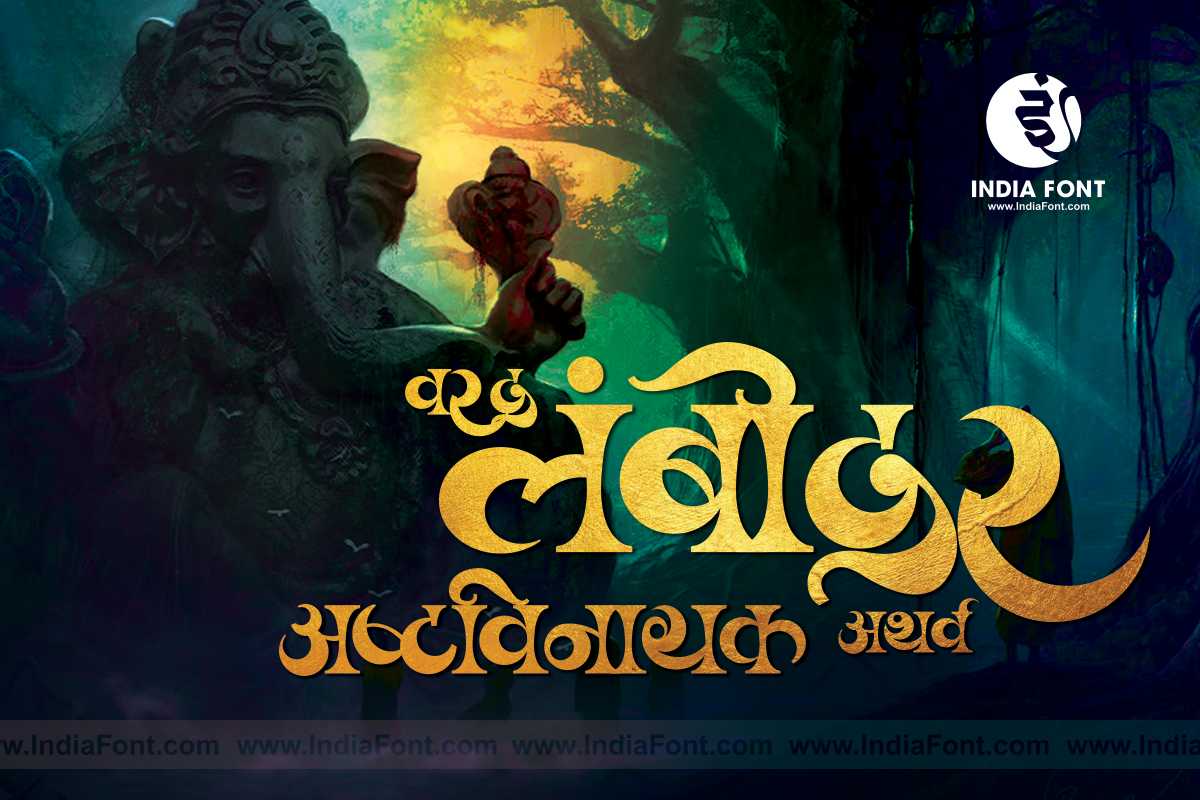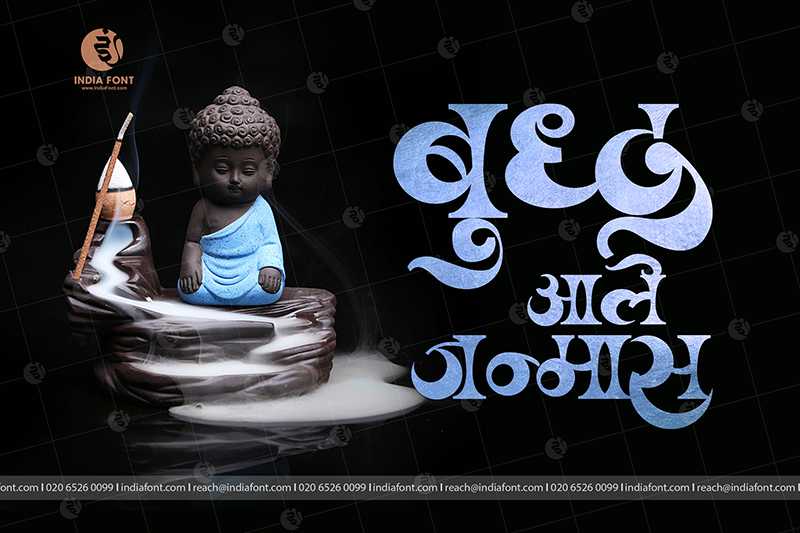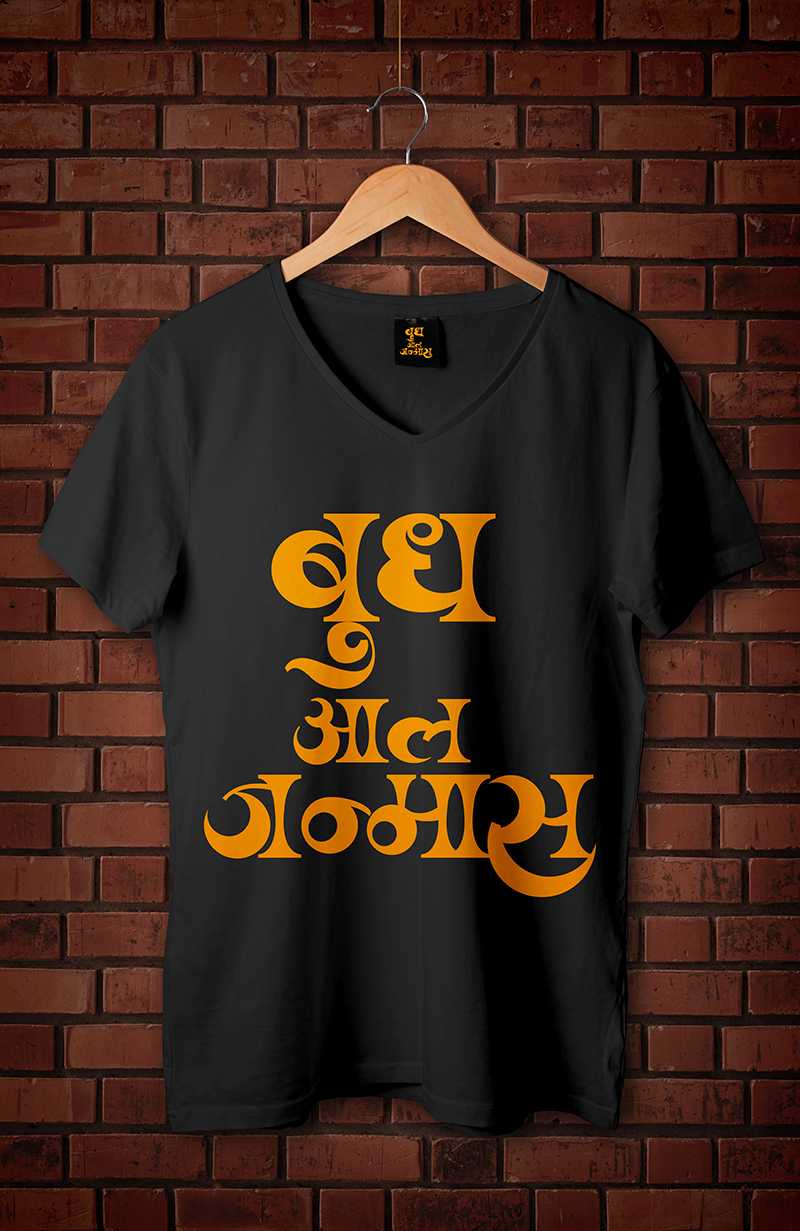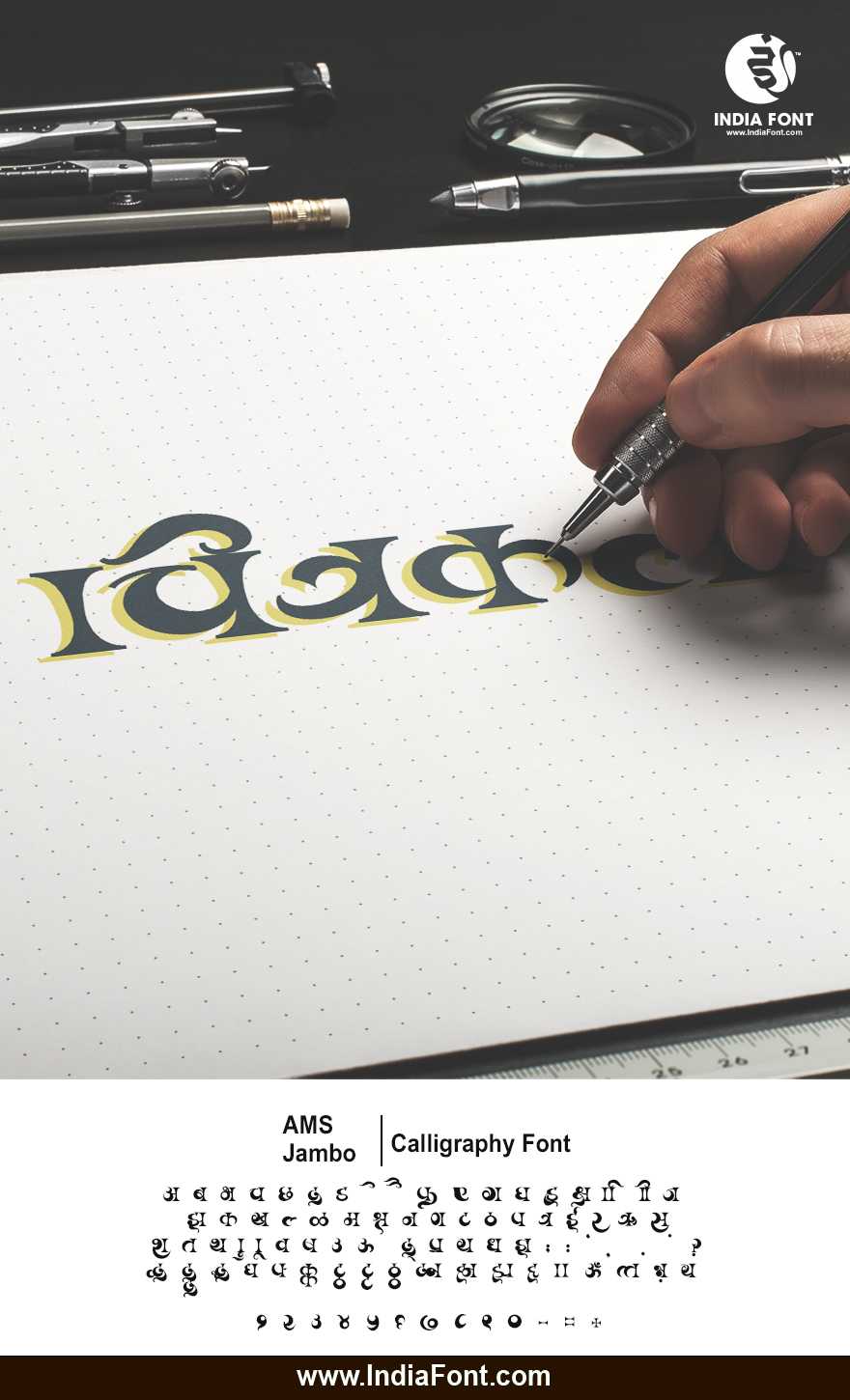
AMS Jambo
Step into a world of playful creativity with AMS Jambo, a font that brings a touch of whimsy and fun to your designs. Whether you're seeking free AMS fonts, exploring AMS Jambo font download options, or looking for AMS Hindi font download choices, AMS Jambo is your vibrant companion.
AMS Jambo font design inspiration and usage example
AMS Jambo typography showcase and design sample
AMS Jambo playful decorative design inspiration
AMS Jambo vibrant creative typography example
About AMS Jambo Font
Step into a world of playful creativity with AMS Jambo, a font that brings a touch of whimsy and fun to your designs. Whether you're seeking free AMS fonts, exploring AMS Jambo font download options, or looking for AMS Hindi font download choices, AMS Jambo is your vibrant companion. This decorative font combines elegance with functionality, making it perfect for various design applications.
AMS Jambo is a professionally crafted decorative typeface that brings clarity and style to your projects. Designed with attention to detail, it supports hindi and marathi characters flawlessly.
Whether you're working on headers-titles, logos, cultural-religious-designs, or other creative projects, AMS Jambo delivers consistent performance across both digital and print media. This carefully designed typeface ensures readability and visual appeal in all your design work.
About AMS Jambo Typography Style
AMS Jambo is a professionally crafted decorative font that exemplifies modern Hindi typography design. This free font is perfect for designers seeking professional branding and logo design projects.
Available in 1 weight and supporting hindi, marathi scripts, AMS Jambo offers exceptional versatility for both digital and print media. Whether you're working on headers-titles, logos, cultural-religious-designs, this carefully designed typeface ensures consistent quality and professional results across all your typography projects.